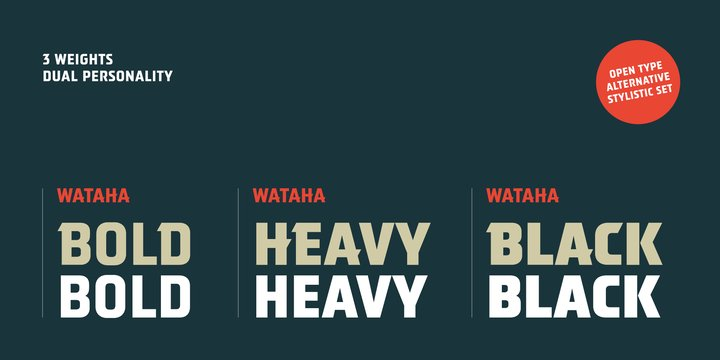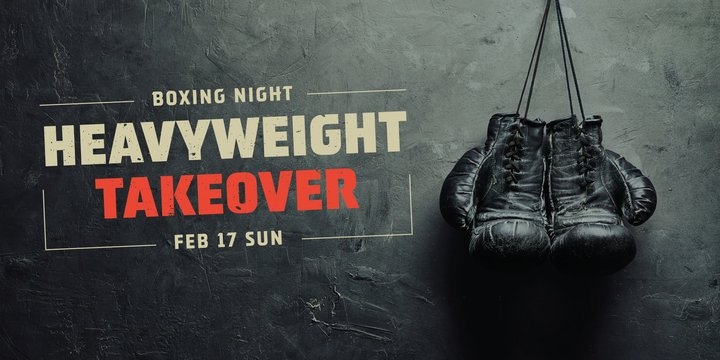
Wataha Font Family
Wataha Font FamilyWataha (in polish – a pack of wolves) is a sharp, robust uppercase family of 3 fonts: Bold, Heavy and Black. Perfect for posters, headlines and logotypes.
With a range of OpenType features you have access to alternative letter shapes, fractions, arrows etc.
Wataha supports most Latin-based languages and few others.